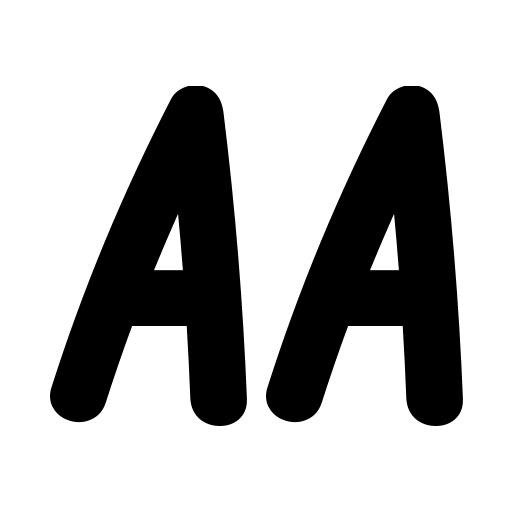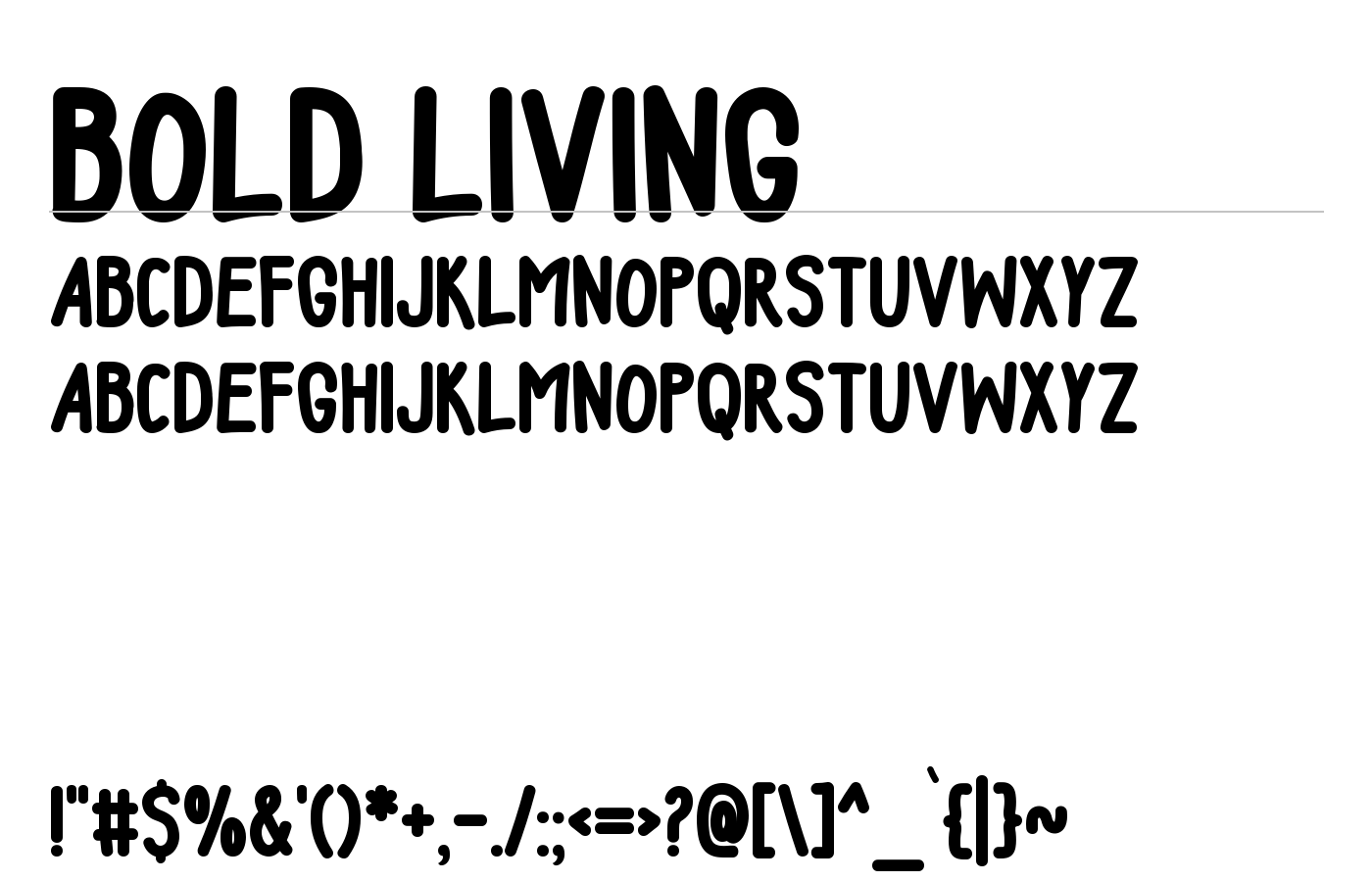
Bold Living is a playful, rounded sans serif font with a bold weight that gives it a friendly and approachable feel. Its tall, narrow letters and consistent stroke width make it eye-catching and ideal for casual, lively designs such as logos, posters, and children's materials. This font adds a fun, informal personality to any project while maintaining clear legibility.
Bold Living Font